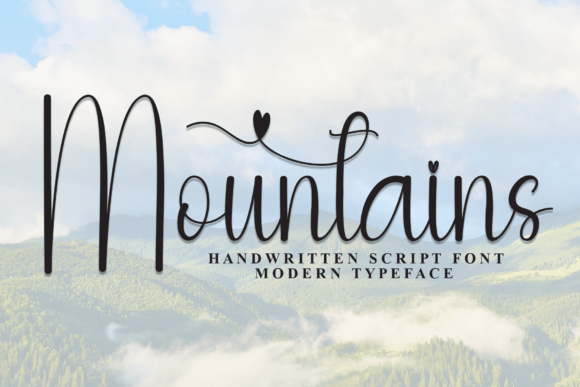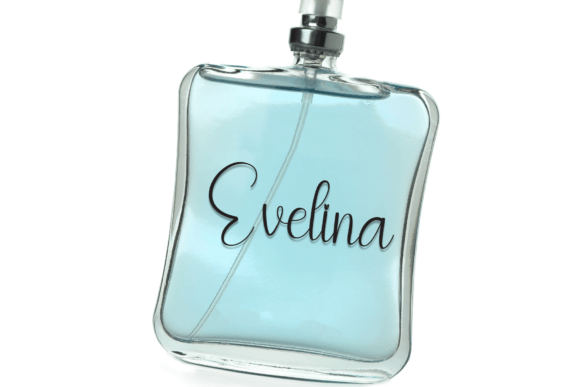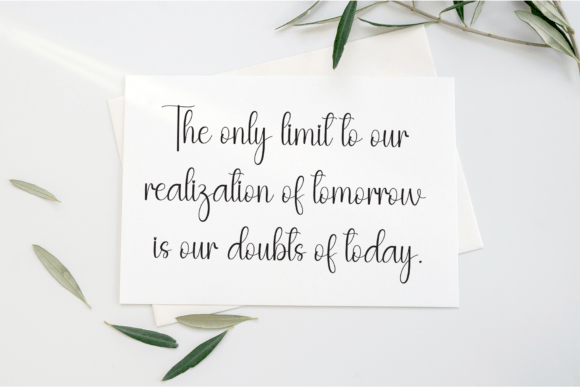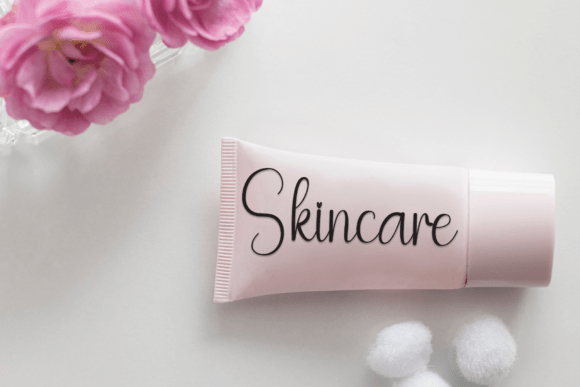
Mountains Font: Elegant Handwritten Script for Branding & Invitations
About the Mountains Font
The wait is over! The incredible Mountains Font is now available for your design toolkit. Mountains is a stylish handwritten script font that exudes elegance and charm with its fluid, graceful strokes. Perfect for branding, invitations, and stationery, it adds a personal and sophisticated touch. The smooth curves and natural flow create a timeless, refined look for any design.
Mountains Font’s elegant, flowing script is ideal for branding projects requiring a sophisticated and personal touch, particularly logos, invitations, and short-form text on packaging. It also works well in headers and short quotes within larger designs. However, its decorative nature makes it unsuitable for body text or UI elements where readability is paramount. Extended use could strain legibility.
Pairing Mountains with a clean sans-serif like Montserrat or a geometric sans-serif like Futura provides a strong contrast, balancing the script’s fluidity with a modern, structured element. For a warmer feel, a serif like Playfair Display offers a complementary classic elegance.
The overall personality of Mountains Font is sophisticated and refined, conveying a sense of timeless charm and understated luxury. It’s best suited for brands focused on quality, craftsmanship, or personalized experiences.
Mountains Font Usage Examples
Mountains Font Example